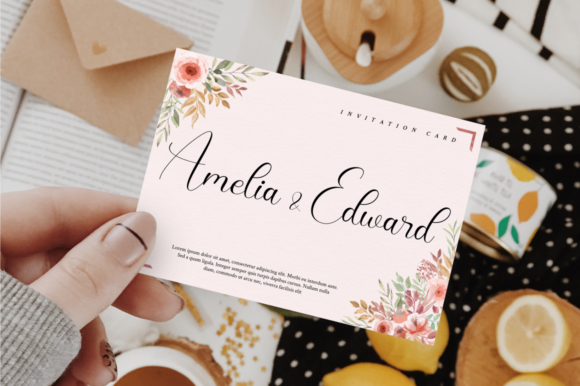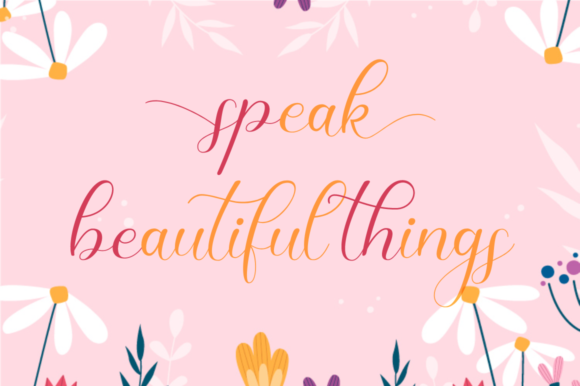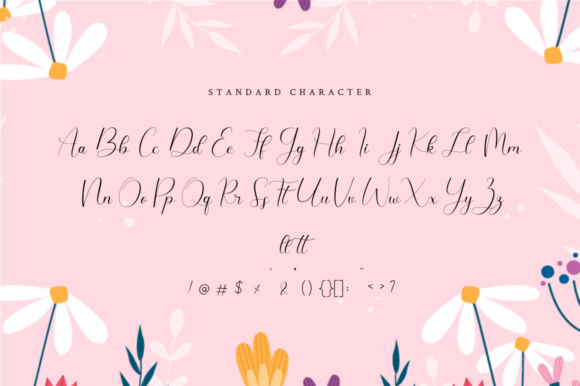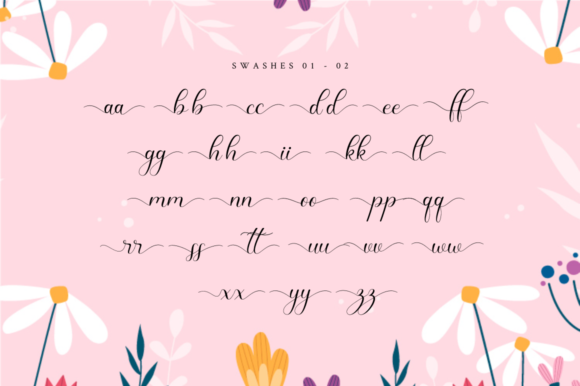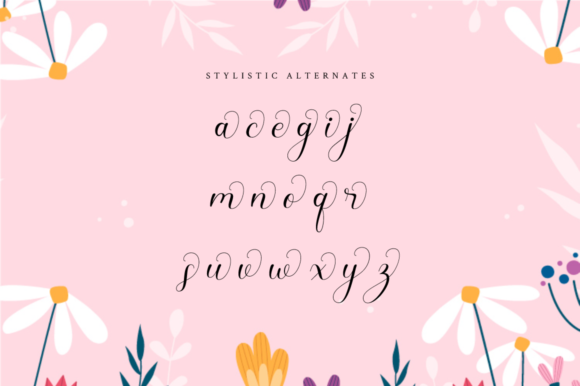
Dandelions Bloom Font
About Dandelions Bloom Font
Dandelions Bloom is a gorgeous handwritten font. This stunning font is a stylish homage to classic calligraphy. It features a varying baseline, smooth lines, gorgeous glyphs and stunning alternates.